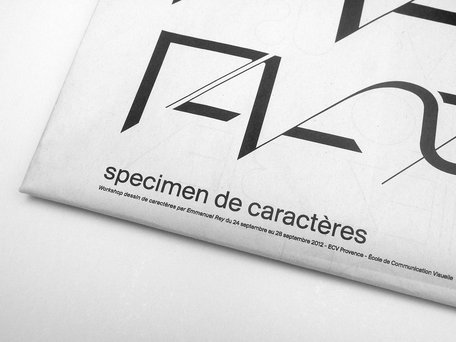
After three typographic posters workshops at ECV Provence, I was invited to lead a type design workshop.
The students designed a large family of fonts, intended to be used as headline typefaces in a magazine workshop later this year.
Each group of students was given a specific section or article of the future magazine (the group in charge of the cover chose PAVANE as the name of the magazine and designed its logotype).
And of course, at the end, it was essential to design and print a specimen to show the typefaces at their best.
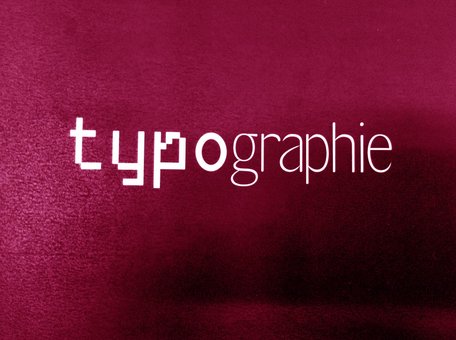
Second year bachelor, second semester, type design curse, ECAL
Teaching by Ian Party.
Evaluation day, June 2012
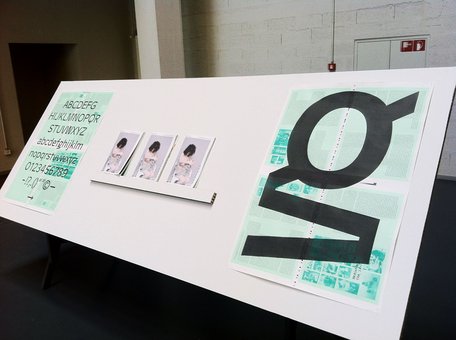
Some iPhone pics taken at the masters exhibition at ECAL/University of art and design Lausanne: Art Direction: type design, photography.
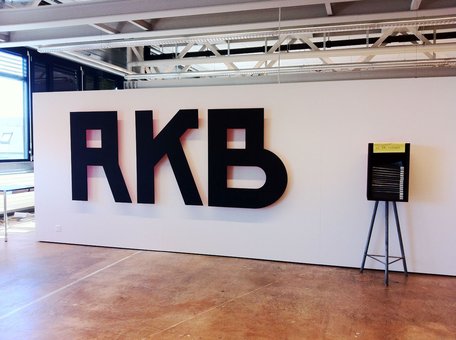
Quick snapshots taken walking through the bachelor works at ECAL/University of art and design Lausanne, one day before the jury.
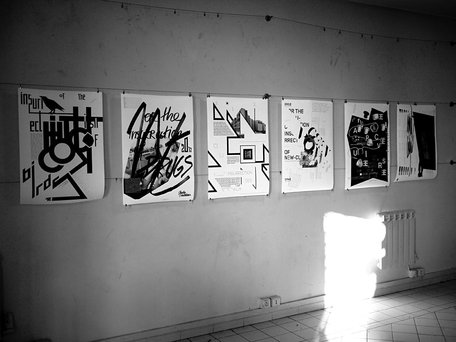
This year, I was invited for the 3rd time to lead a 5 days workshop for master students at ECV Provence.
I asked the students to design a black/white DIN A1 poster. They had to use typography as the main tool to produce the visual (words are the image).
The headline had to be an original design or a modified font and to play with legibility: I wanted them to experiment and produce something else than consensual "typography on photography" posters or "big fonts on neutral background" minimalist designs.
The way they were authorized to use images was strictly defined: it had to bring something to the typographic layout.
The whole process of designing the poster and fonts was based on my own practise.
Posters, in order of appearence:
01. Noémie Chardon, "Bitching, Jung Food, or the insurrection of trash design"
02. Ghjuvan Dumenicu Aletti, "The destructuring: the insurrection of mind"
03. Marie Bechade, "Esprit coupé: l'insurrection à la crème psycho-coco"
04. previous poster (detail)
05. Emmanuelle Drin, "Hitchcok, or the insurrection of birds"
06. Cyril Graziani, "Non discours, ou l'insurrection des maux"
07. Clara Lapprand, "Art, or the insurrection of drugs"
08. Jessica Cheix, "Elixir libre, ou l'insurrection des roses"
09. Elsa Pothin, "Green power, or the insurrection of new-clear"
10. previous poster (detail)
11. Alice Guiraud, "The attractive universe, or the insurrection of the scientific photography"
12. Géraldine Moury, "Pleure pas Lolie, ou l'insurrection absurde"
Typefaces used/modified: Simplon BP, Romain BP, Suisse BP, SangBleu BP